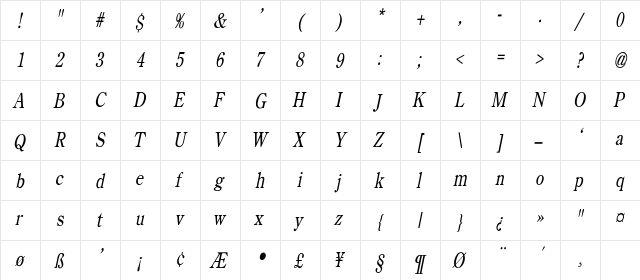
CenturyOldStyle-Light Condensed Italic
Design Context for CenturyOldStyle-Light Condensed Typeface
CenturyOldStyle-Light Condensed brings classic typographic sensibility to the table — its serifs and measured letterforms reflect centuries of print heritage. The slanted form adds forward momentum and visual energy. The delicate stroke weight brings airiness and refinement to layouts. The condensed width makes it efficient for tight spaces without sacrificing legibility.
Pro Tip: Set CenturyOldStyle-Light Condensed at slightly larger body copy sizes than you would a regular-weight serif to compensate for its delicate stroke contrast.